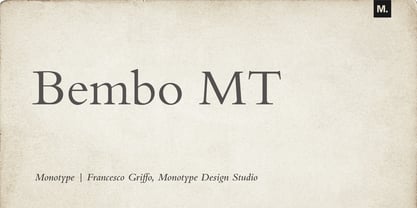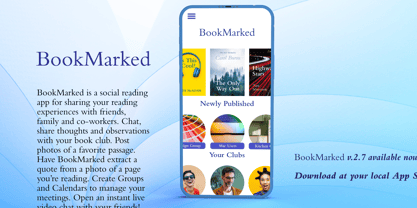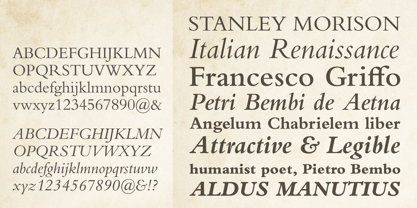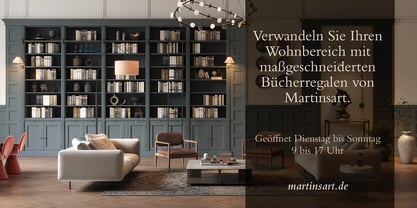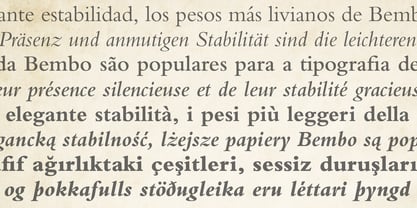
Bembo® MT
by Monotype
About Bembo MT Font Family
The origins of Bembo go back to one of the most famous printers of the Italian Renaissance, Aldus Manutius. In 1496, he used a new roman typeface to print the book de Aetna, a travelogue by the popular writer Pietro Bembo. This type was designed by Francesco Griffo, a prolific punchcutter who was one of the first to depart from the heavier pen-drawn look of humanist calligraphy to develop the more stylized look we associate with roman types today. In 1929, Stanley Morison and the design staff at the Monotype Corporation used Griffo's roman as the model for a revival type design named Bembo. They made a number of changes to the fifteenth-century letters to make the font more adaptable to machine composition. The italic is based on letters cut by the Renaissance scribe Giovanni Tagliente. Because of their quiet presence and graceful stability, the lighter weights of Bembo are popular for book typography. The heavier weights impart a look of conservative dependability to advertising and packaging projects. With 31 weights, including small caps, Old style figures, expert characters, and an alternate cap R, Bembo makes an excellent all-purpose font family.